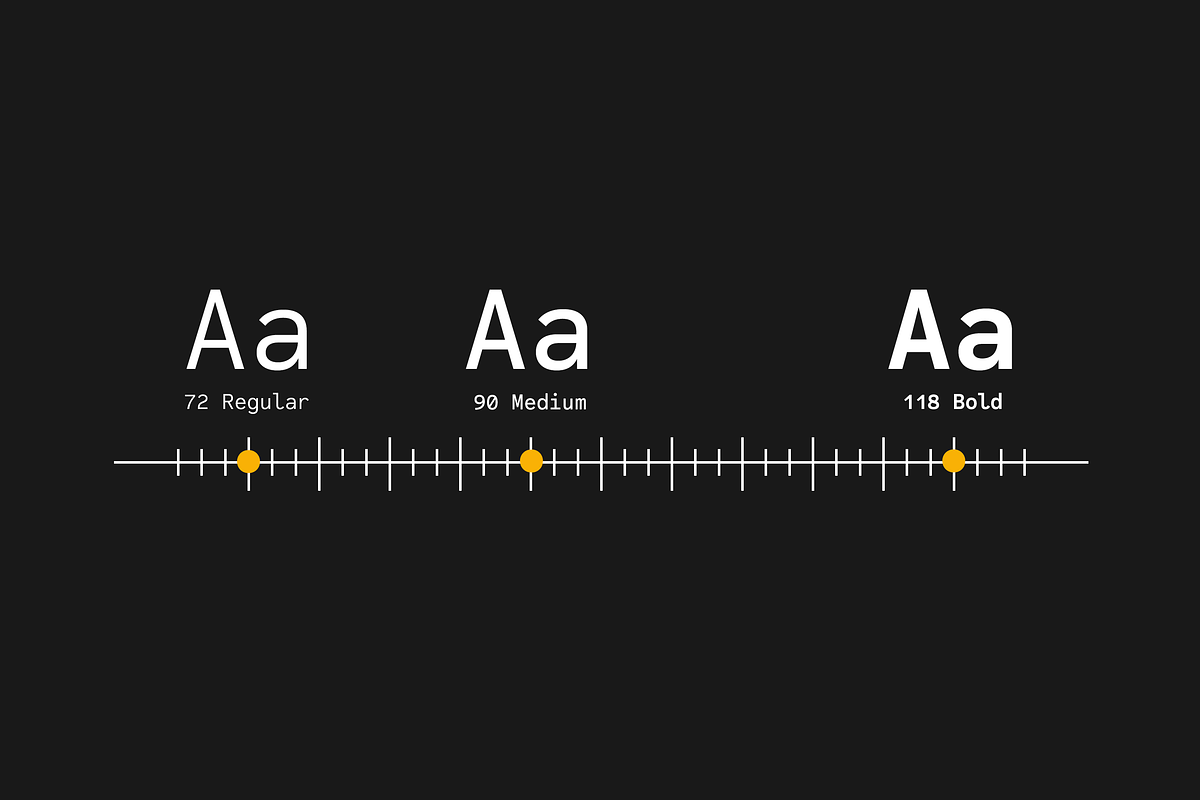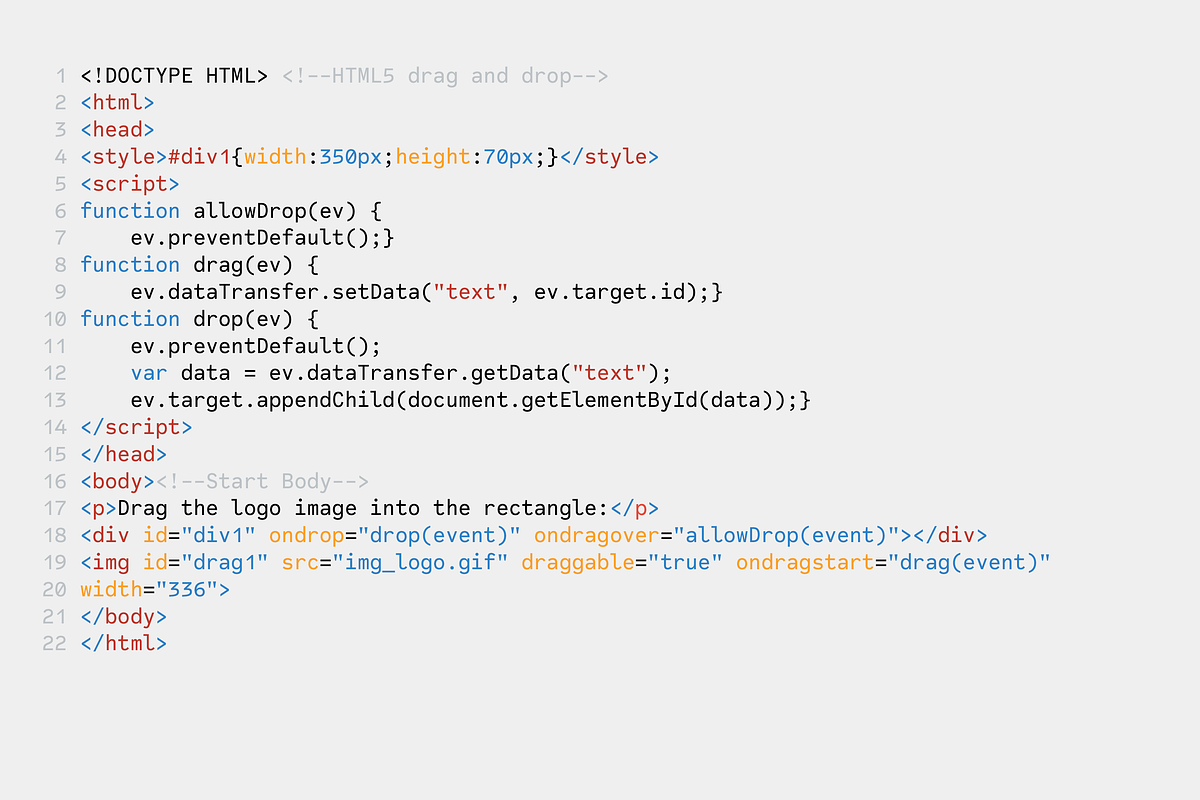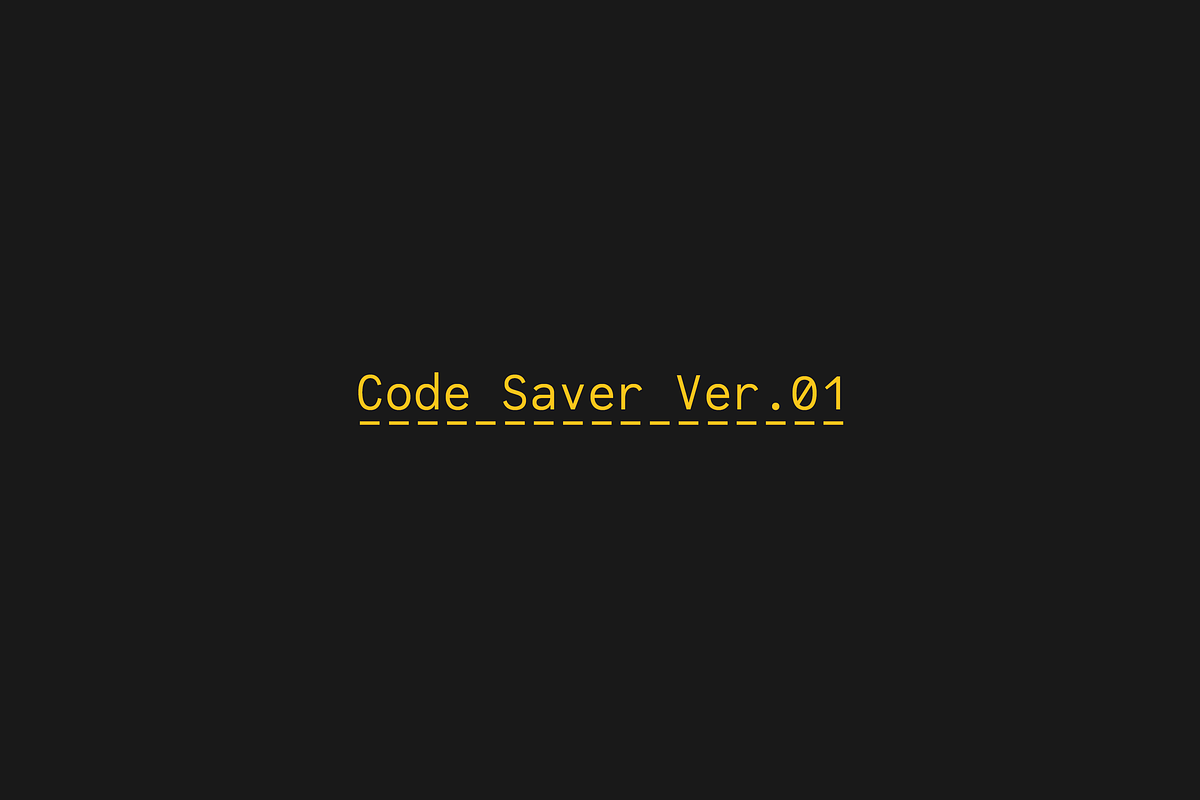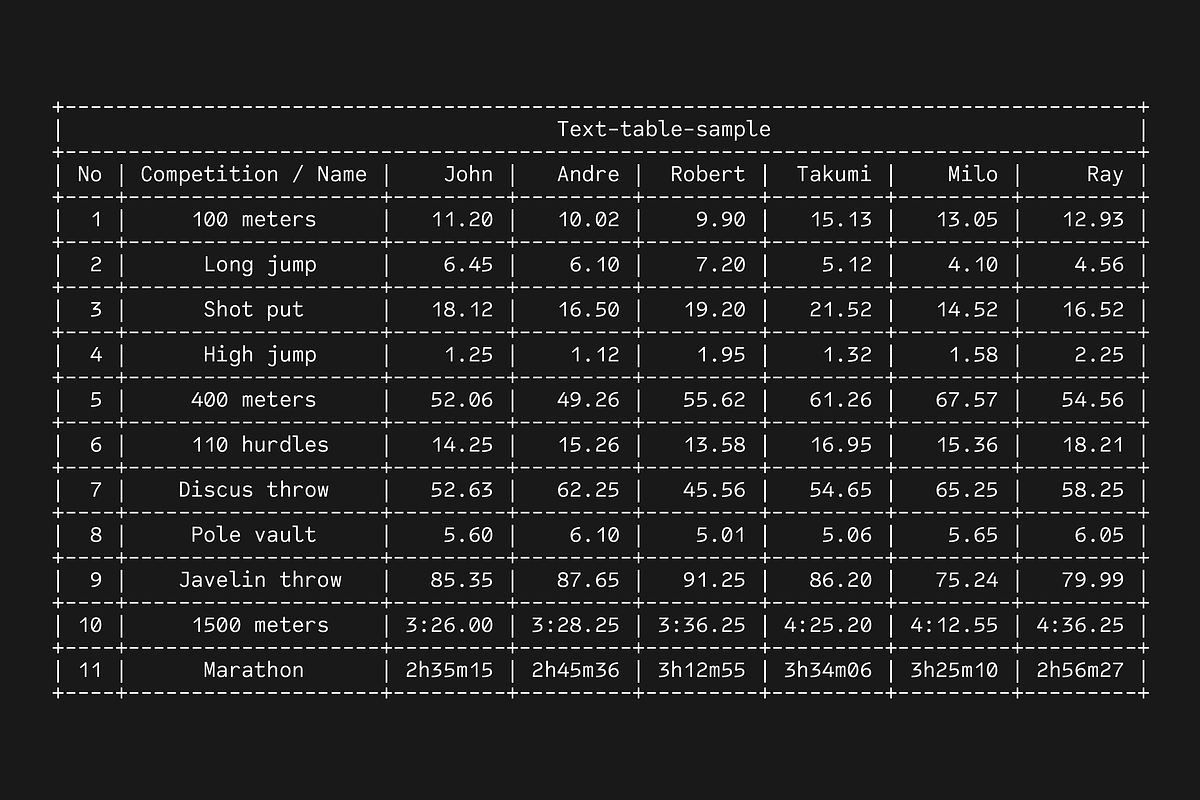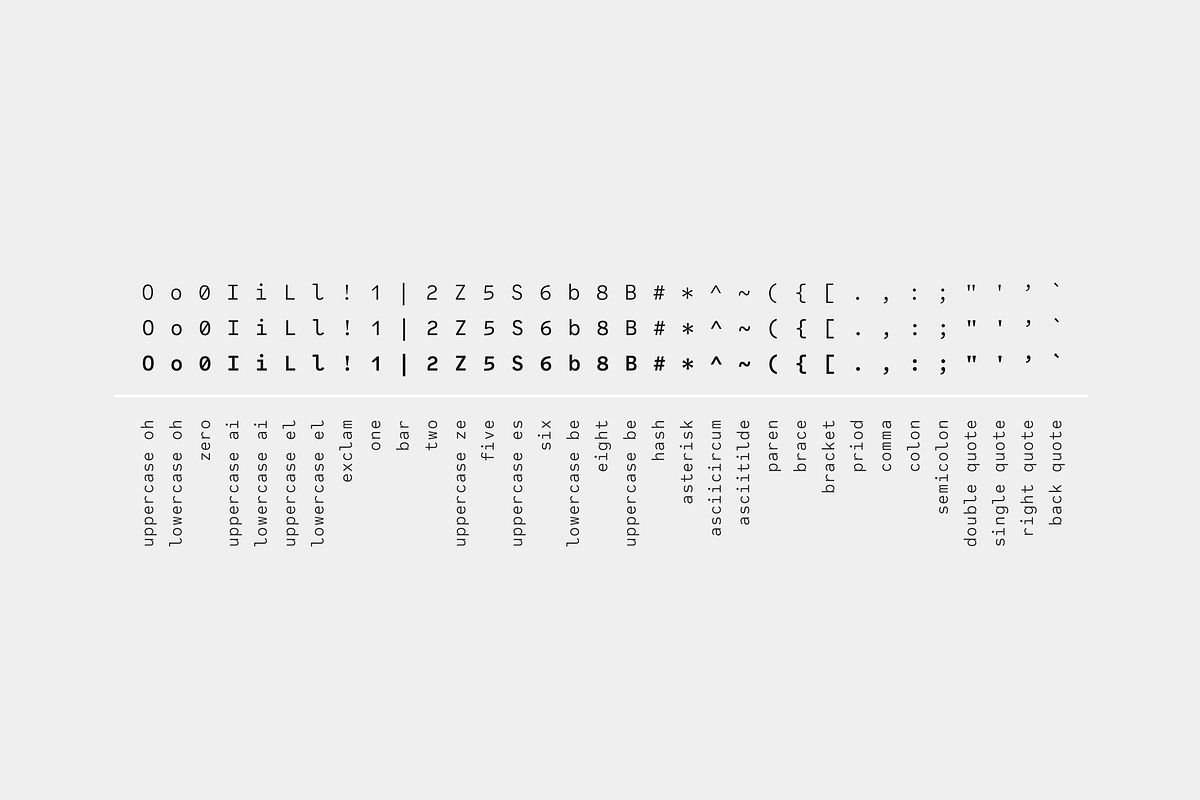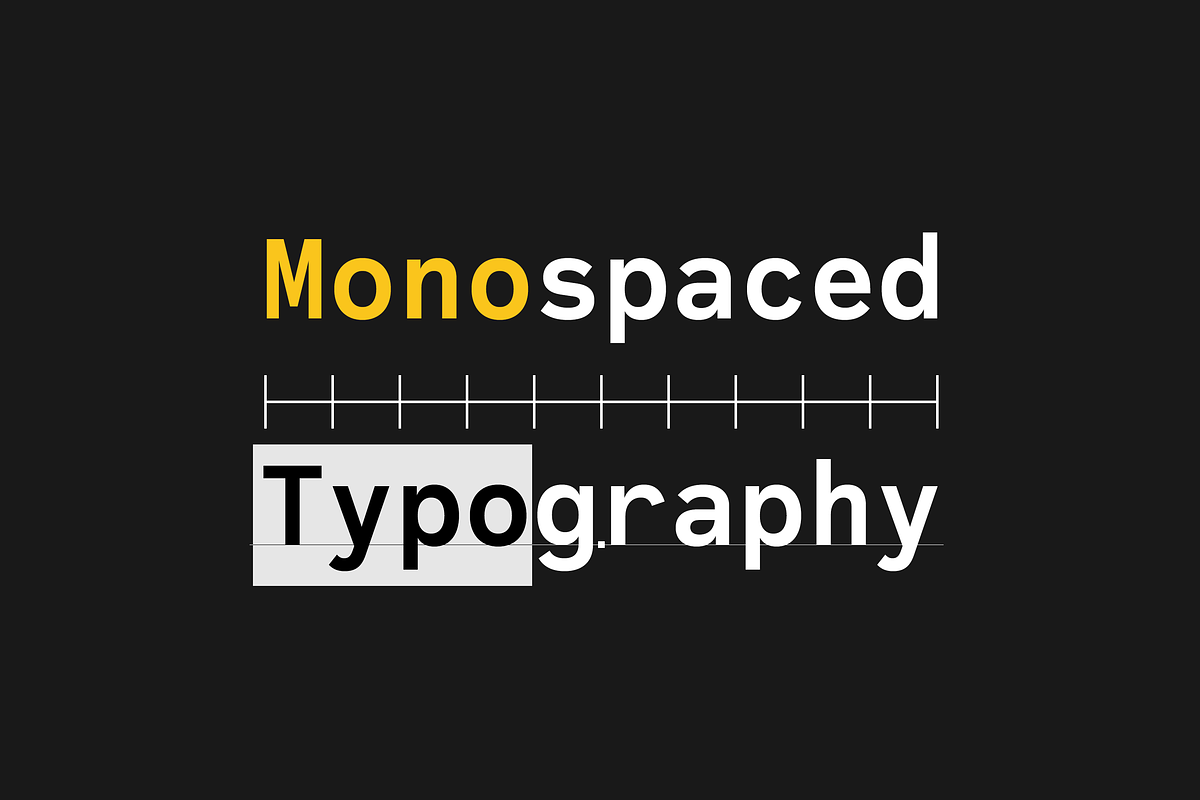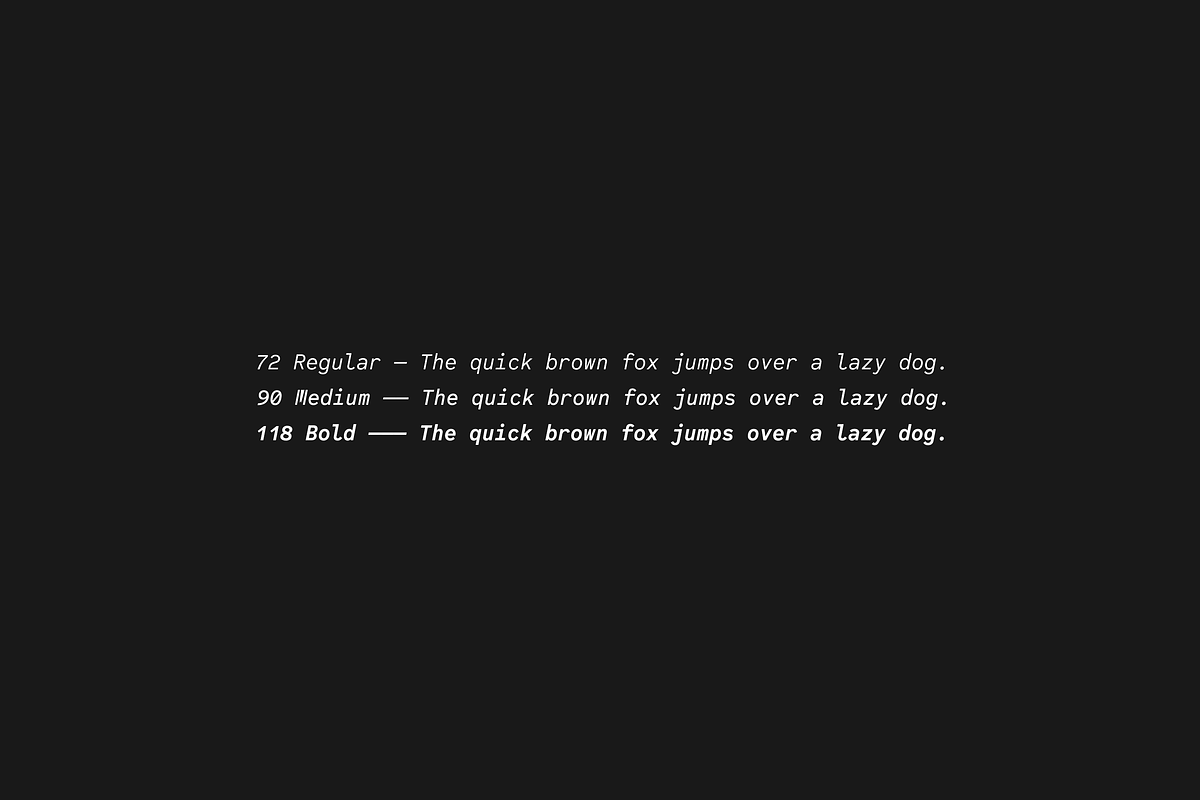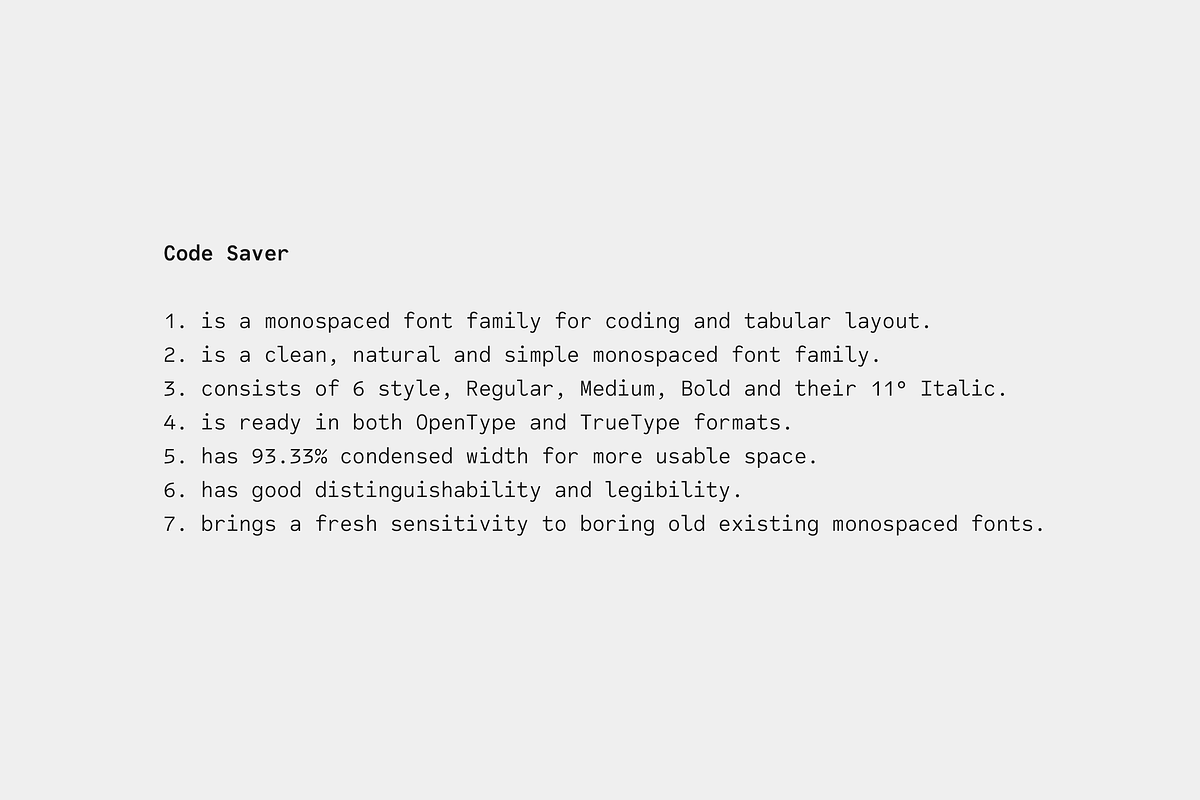
Code Saver
Code Saver — The Next-Generation Monospaced Font Code Saver is a modern monospaced font family designed specifically for coding and tabular layouts, combining clarity, efficiency, and fresh design sensitivity.
- Tailored for programming environments and data display.
- Features a clean, natural, and simple aesthetic for everyday use.
- Includes 6 styles: Regular, Medium, Bold, and their matching 11° Italics.
- Designed with a 93.33% condensed width, maximizing screen space.
- Offers excellent legibility and character distinction, especially in numerals.
- Brings a contemporary feel to monospaced type, refreshing the experience of code editors and terminal windows.
I have looked at a lot of monospaced fonts, and this is the best I've seen. It has three weights (most only have two), with an italic version of each. The zero has a slash through it to distinguish it from capital O, and lowercase l, uppercase I, and numeral 1 are clearly differentiated. The punctuation is quite large for legibility. I use the font not only for program code but also for URLs in the books that I write, where characters must be free from ambiguity. Really it does everything I want, and it's affordable!